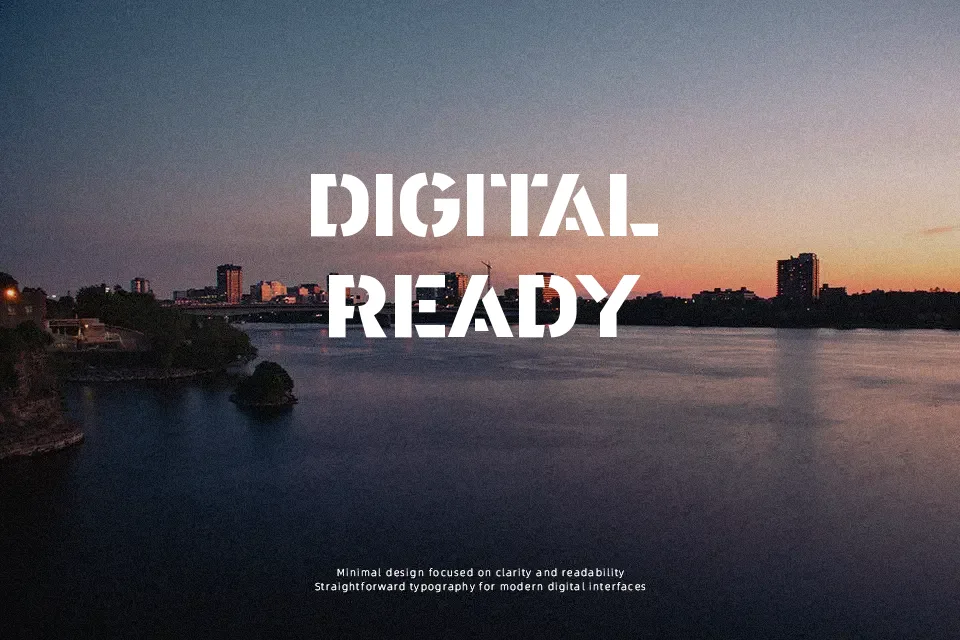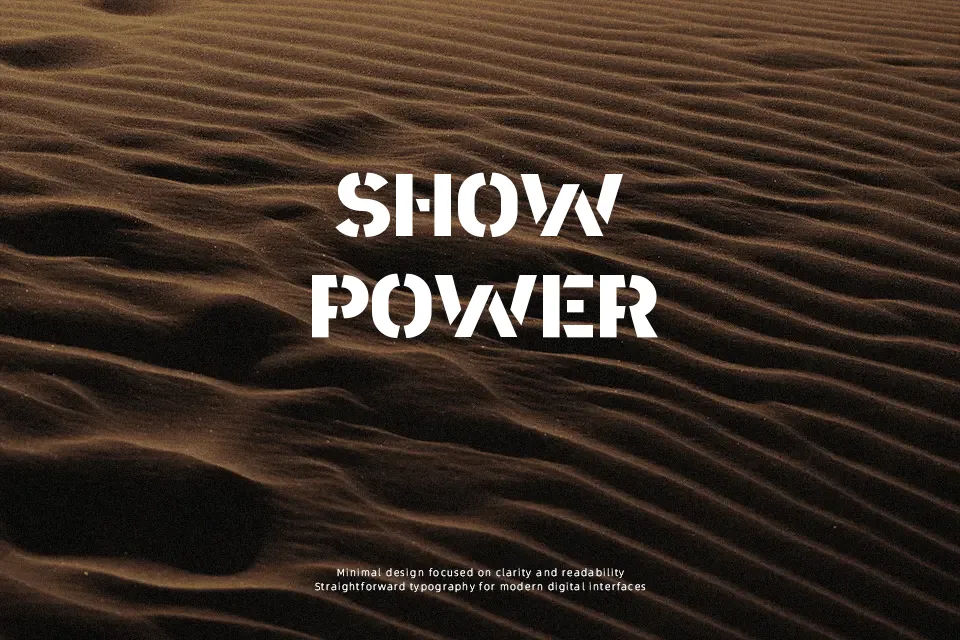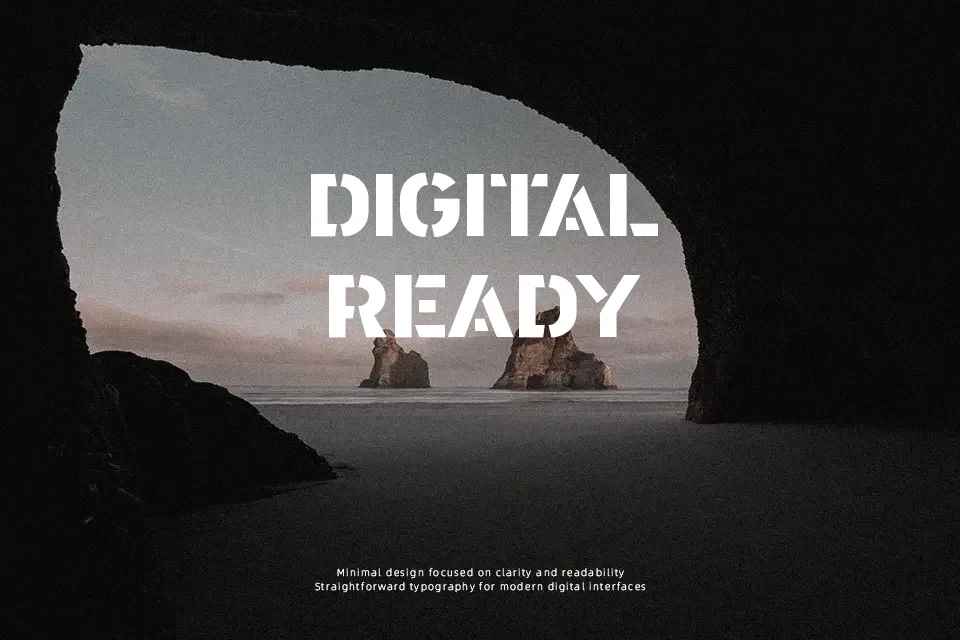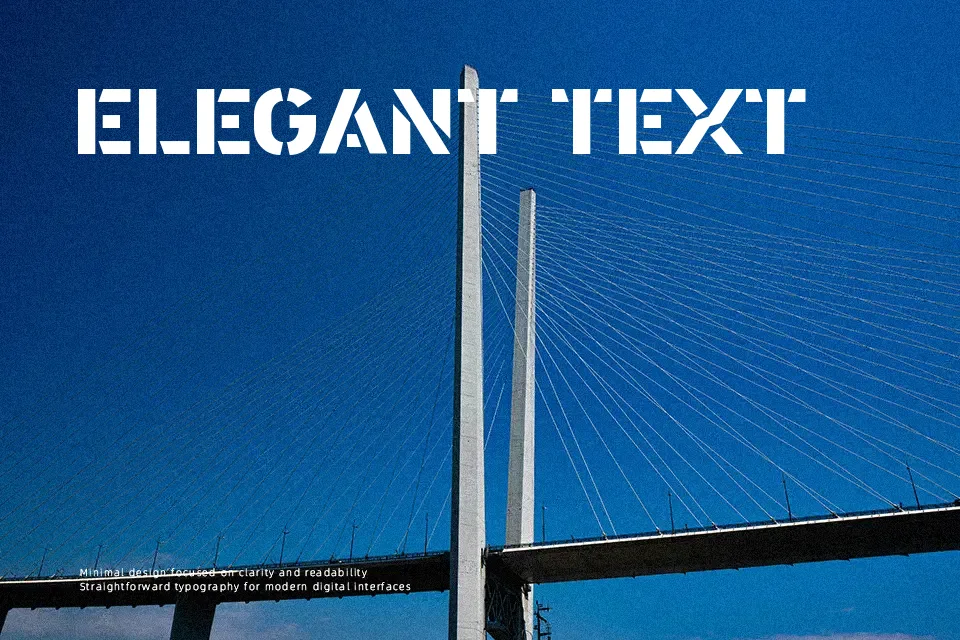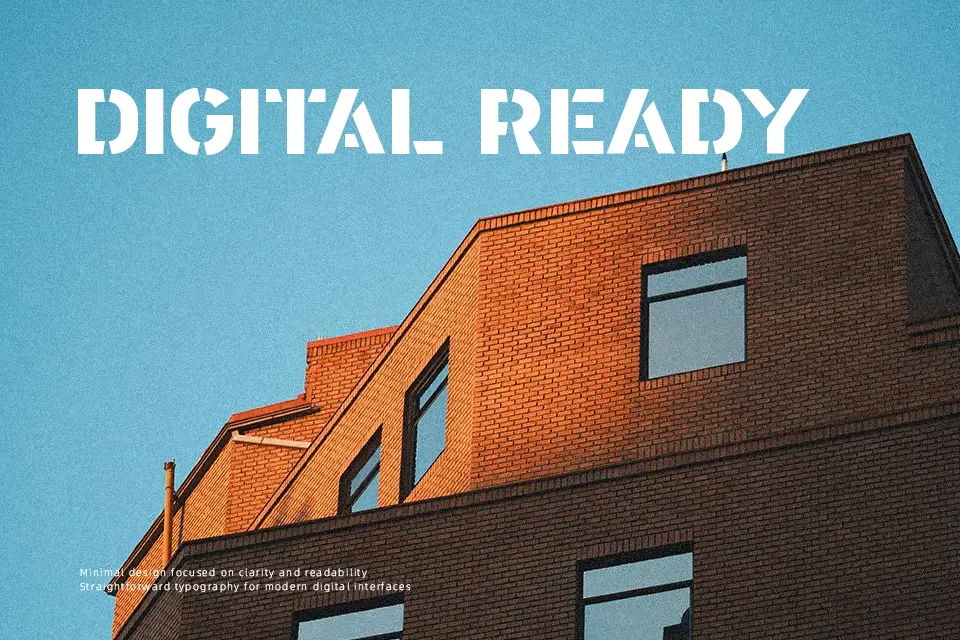
A Area Stencil Font
The weight lands heavy and the cutouts are deliberate — this is a stencil font that doesn’t try to be subtle. Built by Wahyu Eka Prasetya (wep), A Area Stencil uses uniform stroke widths, sharp angular construction, and defined gap breaks that give each letterform that authentic spray-painted, military-crate look. It reads well at display sizes and holds up in poster headlines, streetwear apparel mockups, and industrial packaging concepts. Where it stumbles is at small sizes — the stencil gaps create visual noise below around 18pt, making it a poor pick for body copy or fine-print labeling. Use it where impact is the goal, not legibility at scale.
Best For:- Military and army-themed poster headers
– Streetwear brand graphics and apparel mockups
– Industrial product label design
– Gaming or tactical UI title screens
Not Ideal For:- Body text or long-form reading at small sizes
– Corporate identity or professional business documents
– Formal invitations or editorial text
– UI labels requiring high legibility
Perfect for advertising, branding, and gaming, with a bold and display style.